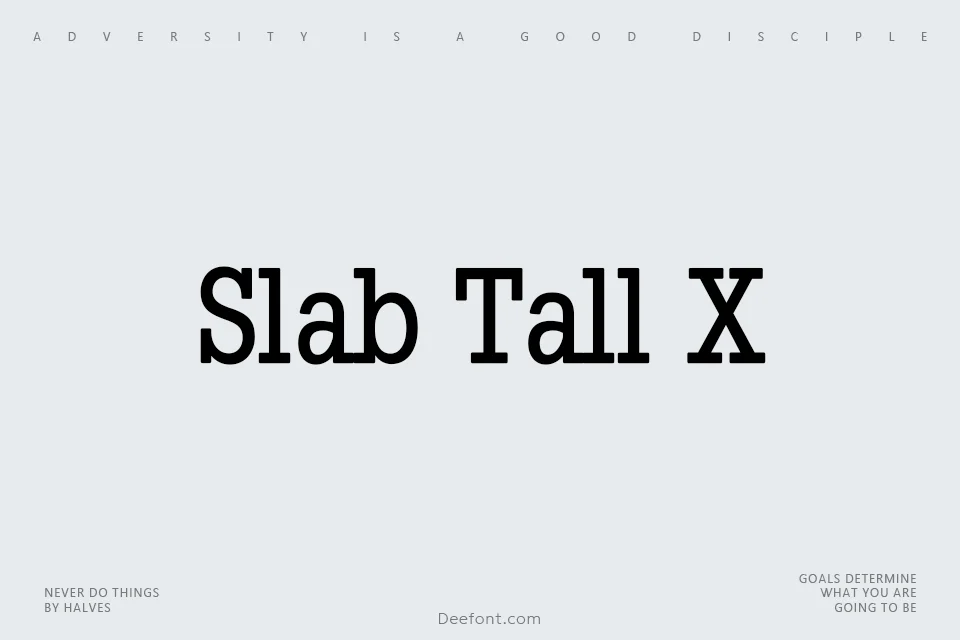
Slab Tall X Font
The Slab Tall X font is a distinctive slab serif typeface created by Manfred Klein that combines strong, bold serifs with contemporary design sensibilities. Its tall, commanding letterforms deliver powerful visual impact, making it ideal for headlines, titles, and distinctive branding applications. With its perfect balance of ruggedness and sophistication, this versatile typeface seamlessly blends classic serif traditions with modern design principles, offering designers a unique aesthetic for both editorial and branding projects that require a touch of personality and authority.